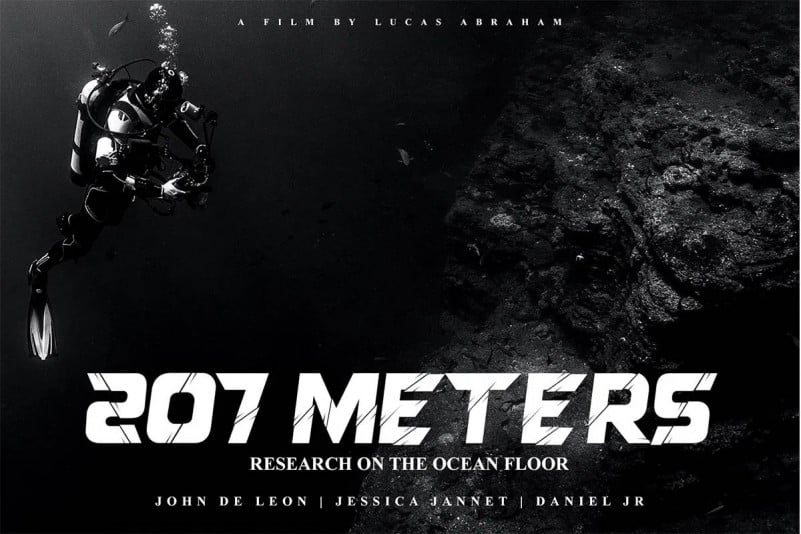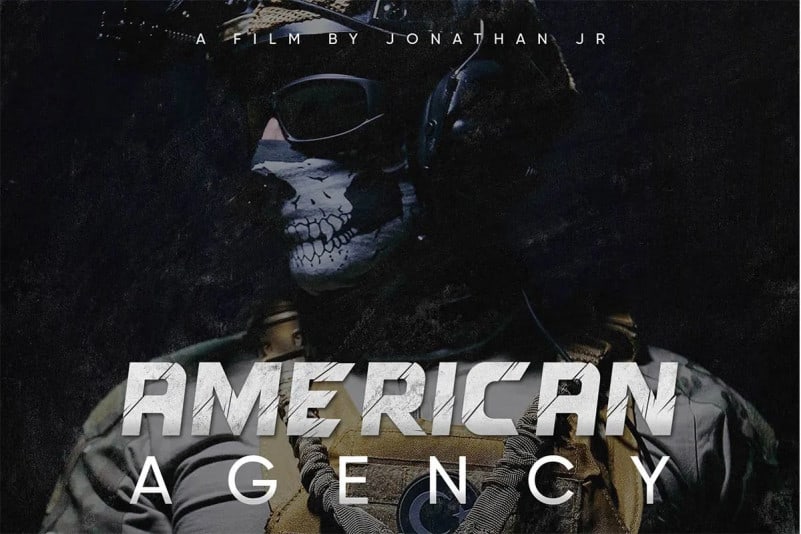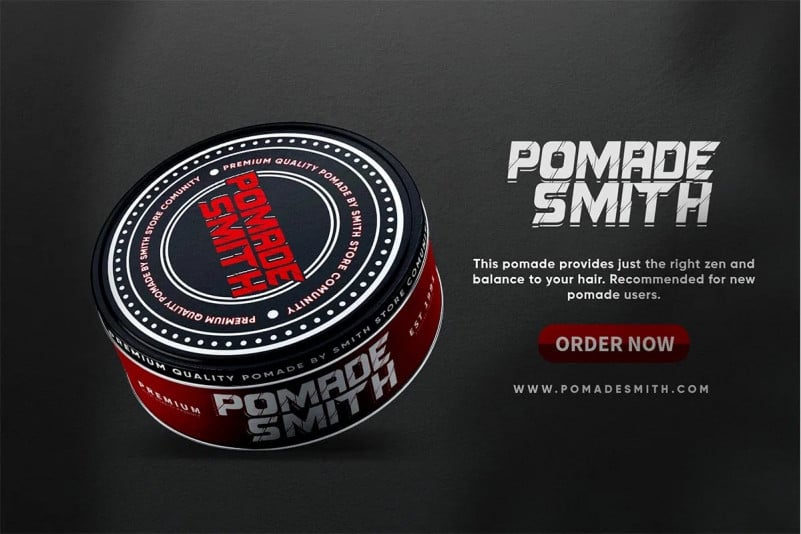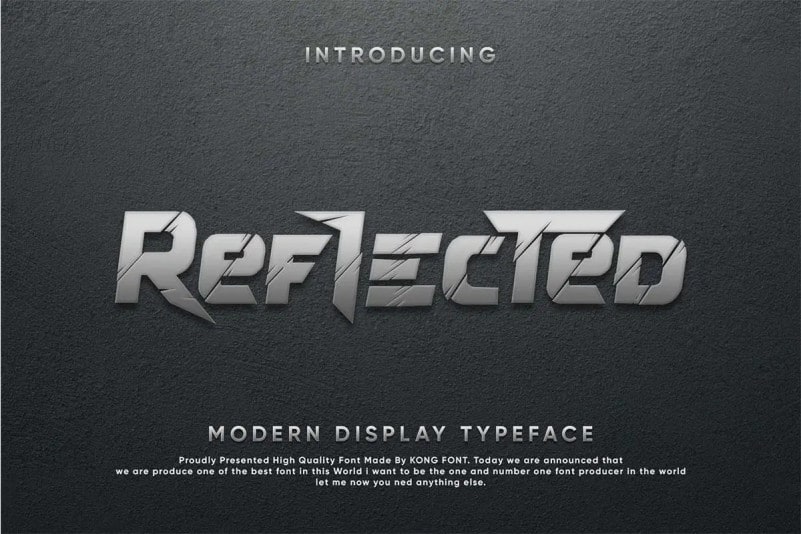
Reflected Display Font
Reflected Display Fonts are created for fulfilling the need for heavy or thick letters. Made from font designer named fontkong. This font features a regular and Italic bold font with numbers and symbols. Very suitable when applied in several media such as book covers, magazine covers, newspapers, ad banners, coffee shops, menu listings, website pages, your trademark, maybe used as a logo.